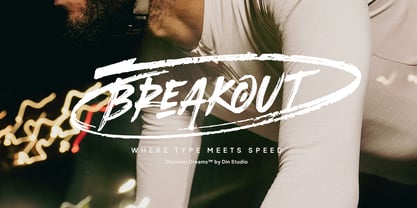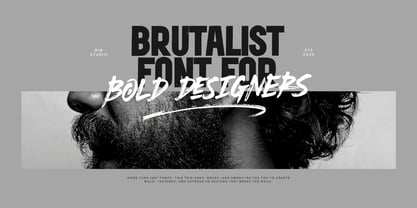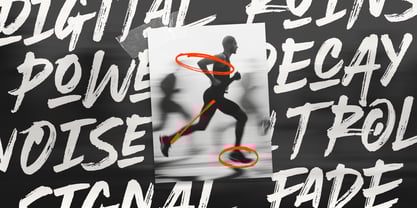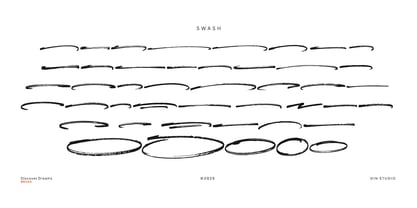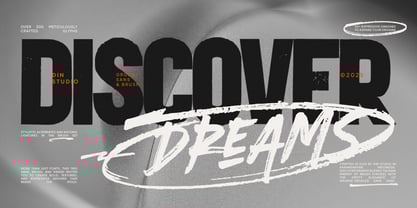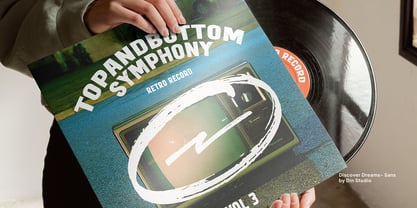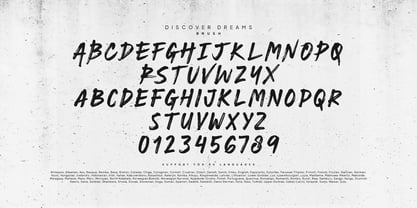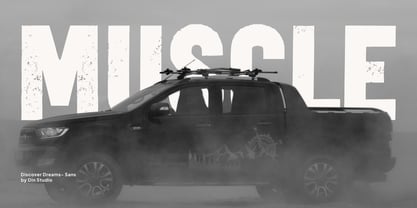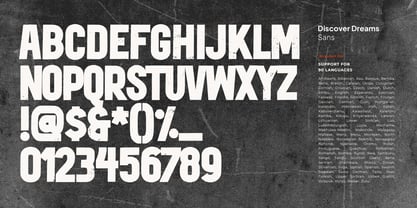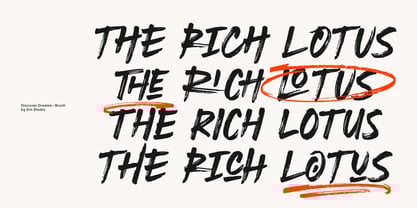
Discover Dreams
by Din Studio
The Discover Dreams Font Family was designed by Donis Miftahudin and published by Din Studio. Discover Dreams contains 3 styles and family package options. More about this family
Discover Dreams is a bold and inspiring font duo that fuses authentic brushwork with rugged modern typography. The brush font, crafted in bold uppercase letters, captures the raw, dynamic energy of true hand-painted strokes, bringing a sense of fearless authenticity to your designs. Paired with a grunge-inspired sans serif typeface available in nine versatile weights, Discover Dreams balances expressive artistry with edgy, textured character. This duo delivers a striking, adventurous typographic combination that dares you to dream boldly. In addition, enjoy the features here.
Discover Dreams fits in name cards, branding, packaging, posters, headlines, editorial designs, and many more designs. Find out more ways to use this font by taking a look at the font preview.